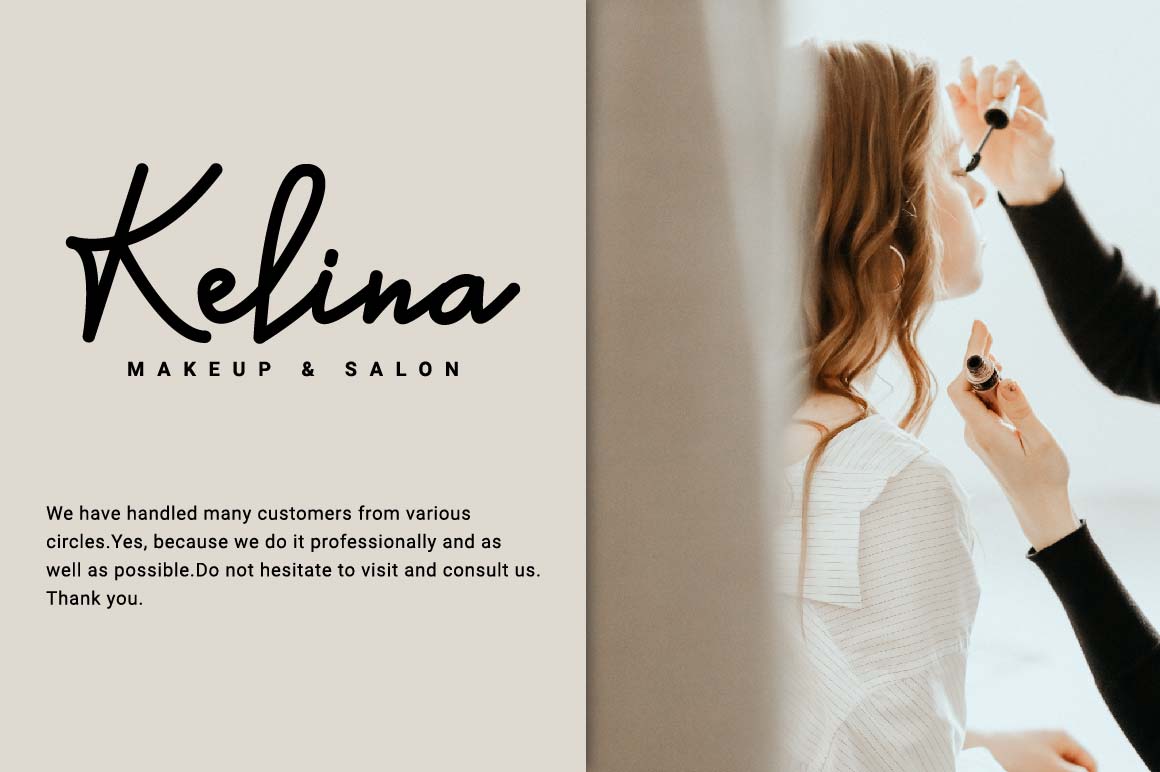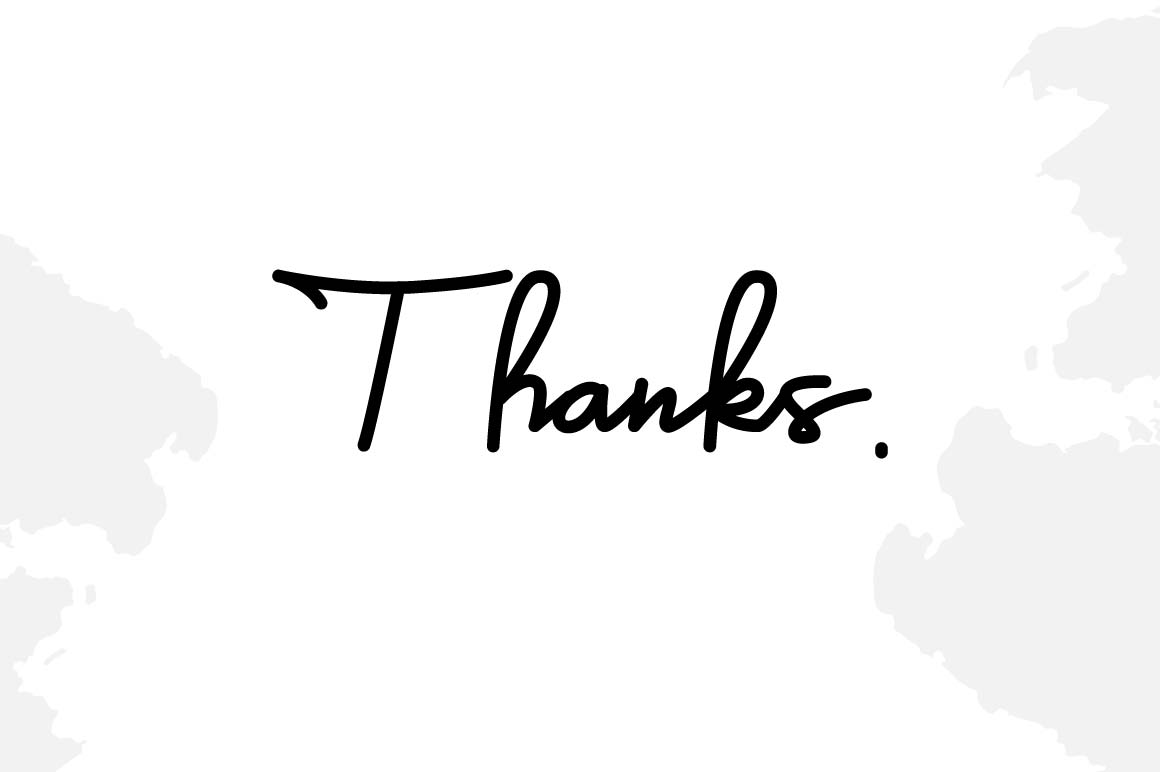
An elegant looking font that’s perfect for your project and supports multilingualism. Can be applied to brochures, creative posts, boutiques and salons, women’s jewelry, wedding invitations, business cards, photographer watermarks, clothing, and more. For reference, see preview.
Features:
-Uppercase
-Lowercase
-Numeral
-Punctuation
-Ligature